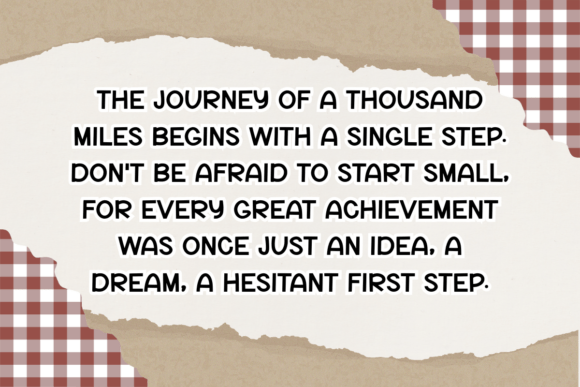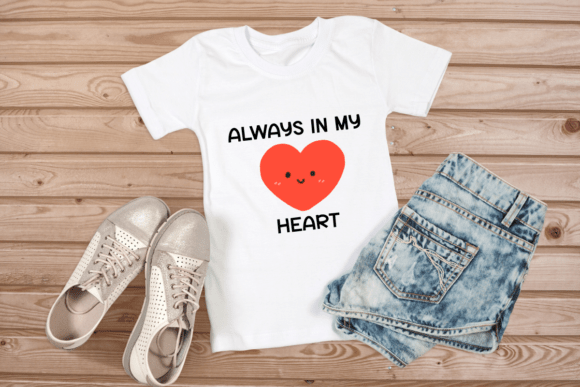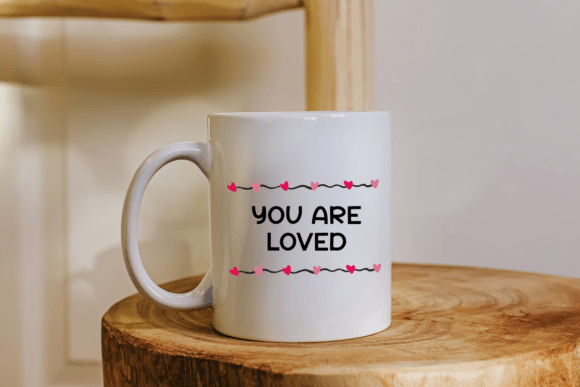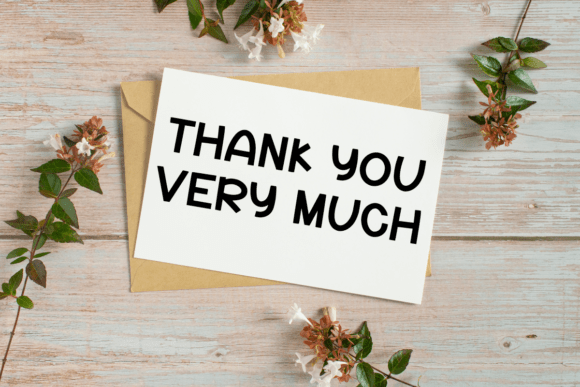
Introducing Cherry Font: The Perfect Casual Font for Creative Projects
Are you a designer or crafter looking for a font that adds a touch of cuteness to your projects? Look no further than Cherry Font! This casual font is perfect for creating visually appealing quotes, stickers, mugs, tumblers, sublimation designs, t-shirts, and more. In this article, we’ll dive into the features and benefits of Cherry Font, and explore how you can use it to elevate your creative projects.
What is Cherry Font?
Cherry Font is a unique and playful font that boasts a cute style, making it ideal for a wide range of creative applications. Its casual and friendly vibe makes it perfect for designers and crafters who want to add a personal touch to their work. Whether you’re creating social media graphics, printable art, or merchandise, Cherry Font is sure to bring a smile to your audience’s faces.
Key Features of Cherry Font
- Cute and Playful Style: Cherry Font’s adorable design makes it perfect for projects that require a touch of whimsy and fun.
- Casual and Friendly Vibe: This font’s relaxed and approachable feel makes it ideal for creating content that resonates with a wide audience.
- Versatile: Cherry Font can be used for a variety of projects, including quotes, stickers, mugs, tumblers, sublimation designs, t-shirts, and more.
- Easily Readable: Despite its playful style, Cherry Font remains easily readable, making it perfect for creating content that needs to be understood quickly.
Benefits of Using Cherry Font
So, why should you choose Cherry Font for your creative projects? Here are just a few benefits of using this delightful font:
- Adds a Personal Touch: Cherry Font’s unique style allows you to add a personal touch to your projects, setting them apart from more generic designs.
- Engages Your Audience: The playful and friendly vibe of Cherry Font is sure to engage your audience and leave a lasting impression.
- Perfect for Branding: If you’re looking to create a consistent brand identity, Cherry Font can help you achieve a cohesive and recognizable visual style.
Creative Ways to Use Cherry Font
Now that we’ve explored the features and benefits of Cherry Font, let’s take a look at some creative ways to use this versatile font:
- Quotes and Printable Art: Use Cherry Font to create inspiring quotes, printable art, and wall decor that adds a touch of personality to any room.
- Stickers and Labels: Create custom stickers and labels with Cherry Font that are perfect for planners, journals, and other craft projects.
- Mugs and Tumblers: Add a personal touch to your mugs and tumblers with Cherry Font, making them perfect for gifts or personal use.
- Sublimation Designs: Use Cherry Font to create vibrant sublimation designs for t-shirts, tote bags, and other products.
Tips for Using Cherry Font Effectively
To get the most out of Cherry Font, here are a few tips to keep in mind:
- Pair with Other Fonts: Experiment with pairing Cherry Font with other fonts to create a unique and visually appealing design.
- Use Bright Colors: Cherry Font looks great with bright and bold colors, so don’t be afraid to get creative with your color palette.
- Experiment with Sizes: Play around with different font sizes to create visual interest and hierarchy in your designs.
Cherry Font is a versatile and adorable font that’s perfect for designers and crafters looking to add a touch of personality to their projects. With its cute and playful style, casual and friendly vibe, and ease of use, Cherry Font is sure to become a go-to font in your creative toolkit. Whether you’re creating quotes, stickers, mugs, tumblers, sublimation designs, t-shirts, or more, Cherry Font is the perfect choice for adding a personal touch to your work.